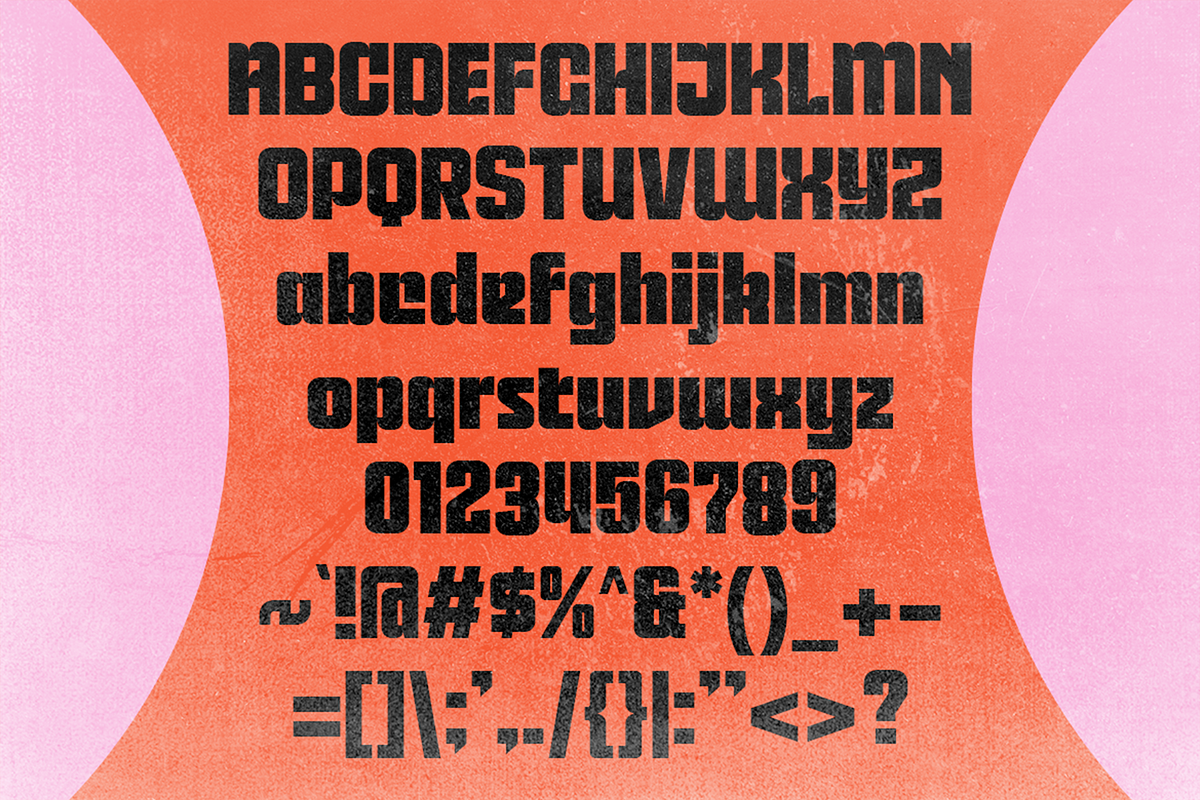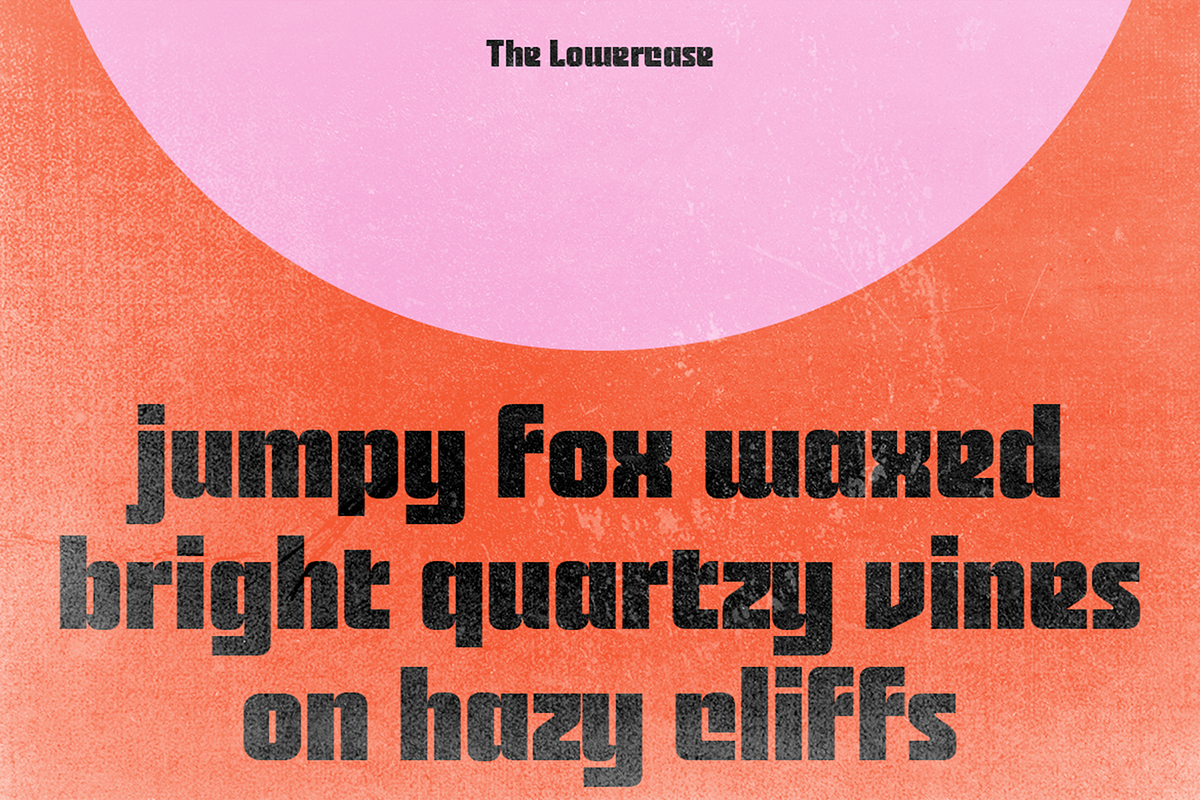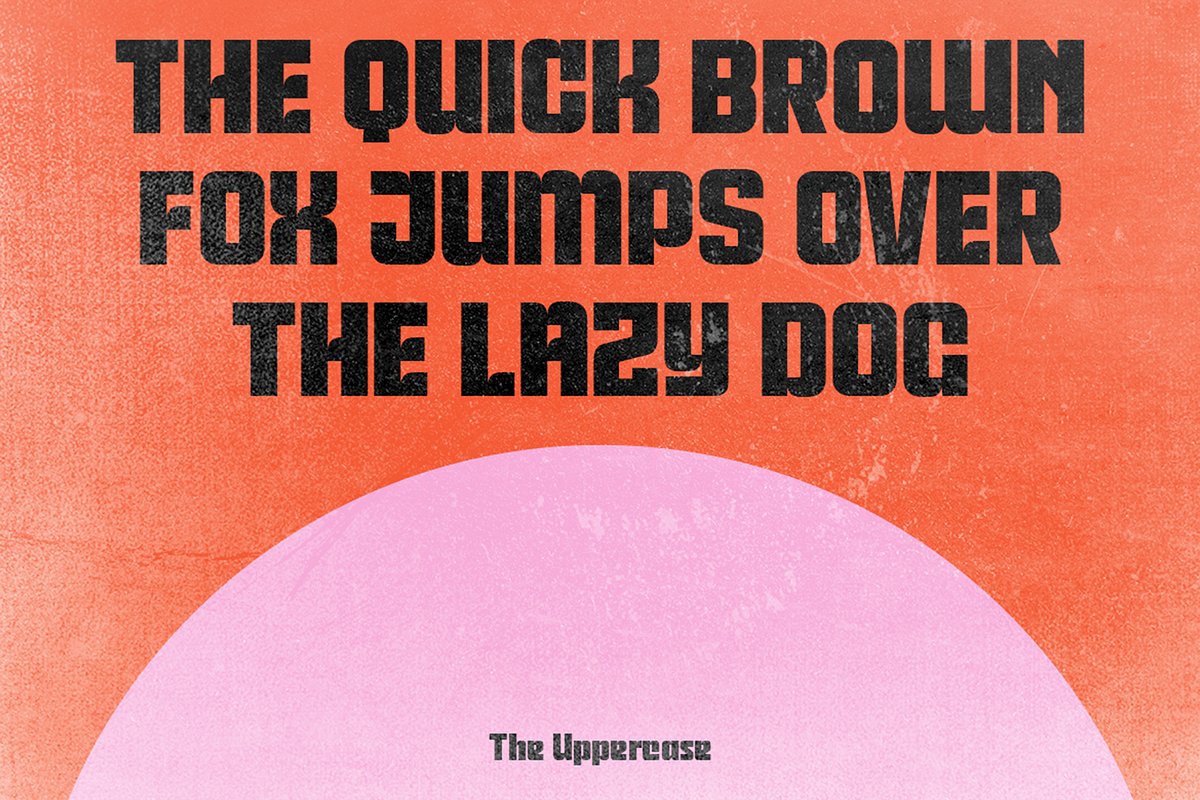
Renamp - Bold Square Cut Fonts
Meet Renamp: The Bold, Square-Cut Game Changer
Looking for a font that’s bold, modern, and instantly catches the eye? Renamp is here to shake things up! It’s a bold sans-serif, but with a unique twist—each letter has a sleek, angled cut on the corners, making it look fresh and stylish without trying too hard.
Perfect for posters, logos, branding, or anything that needs to stand out. Renamp’s got that cool, edgy vibe that takes your design from “nice” to “whoa!” in seconds. Give your project the Renamp edge—it’s simple, bold, and ready to make an impact.